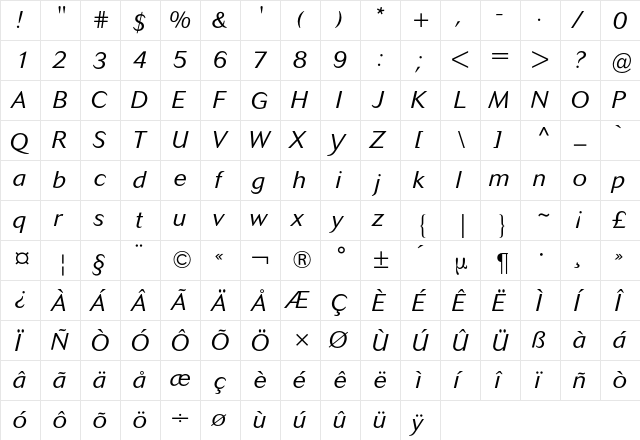
Cosmos BQ Regular
Design Context for Cosmos BQ Typeface
Cosmos BQ takes a measured approach to typography — its balanced proportions and neutral character make it a reliable workhorse for both digital and print work.
Pro Tip: Use Cosmos BQ in both headline and body roles to test its range before committing to a single application.